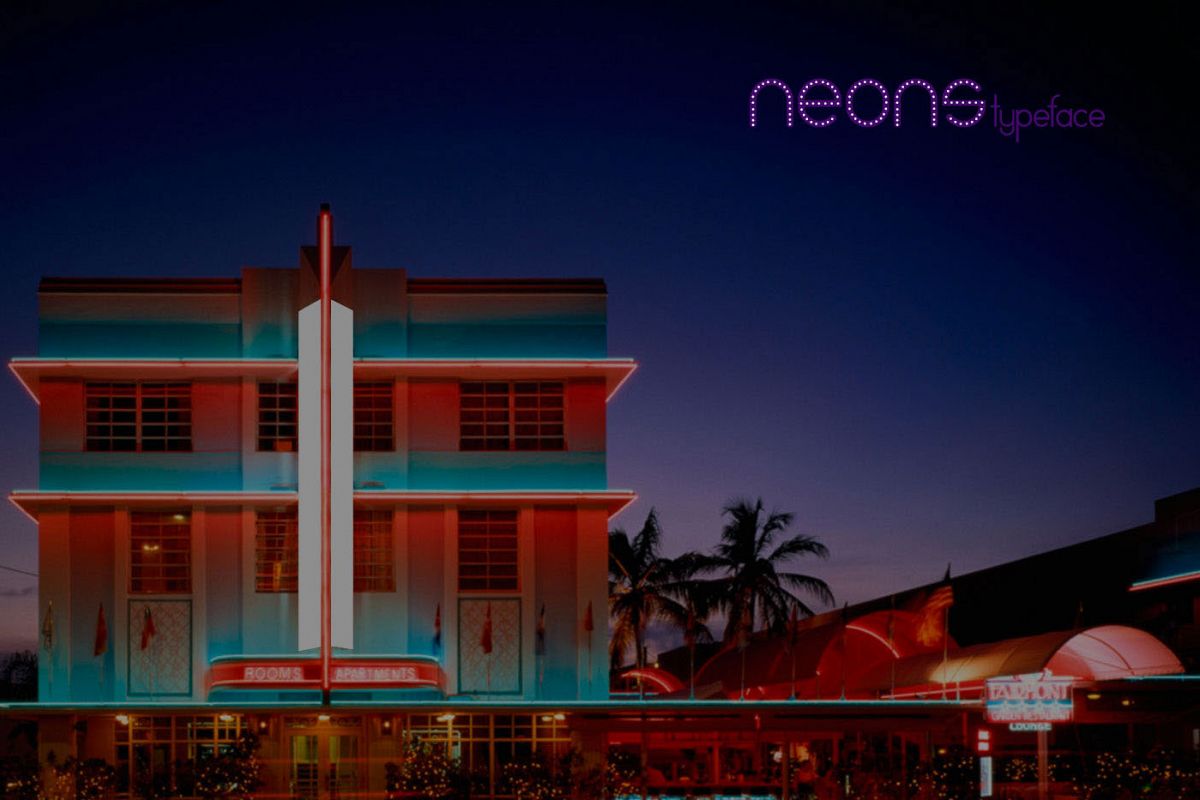
Neons display typeface
neons dotted
neons
Neons is a display typeface that reminds us of the 80s. With a vintage style, and two fonts in its product archive, Neons is a neat font that can be used for thematic designs.